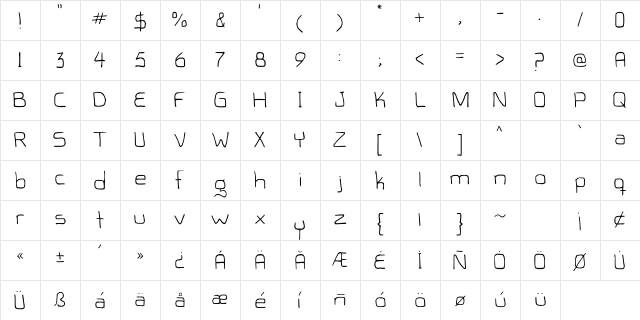
Baron Medium
Design Context for Baron
Baron is a composed and adaptable typeface that performs quietly and consistently across a wide range of design contexts.